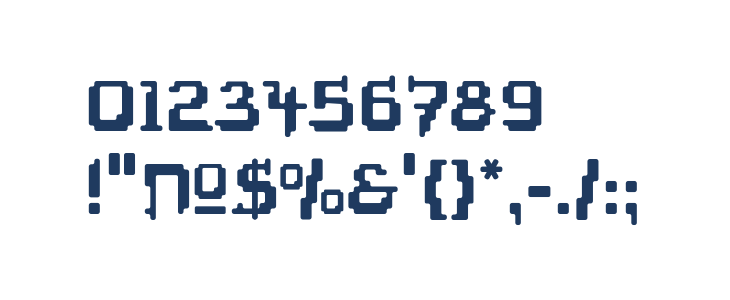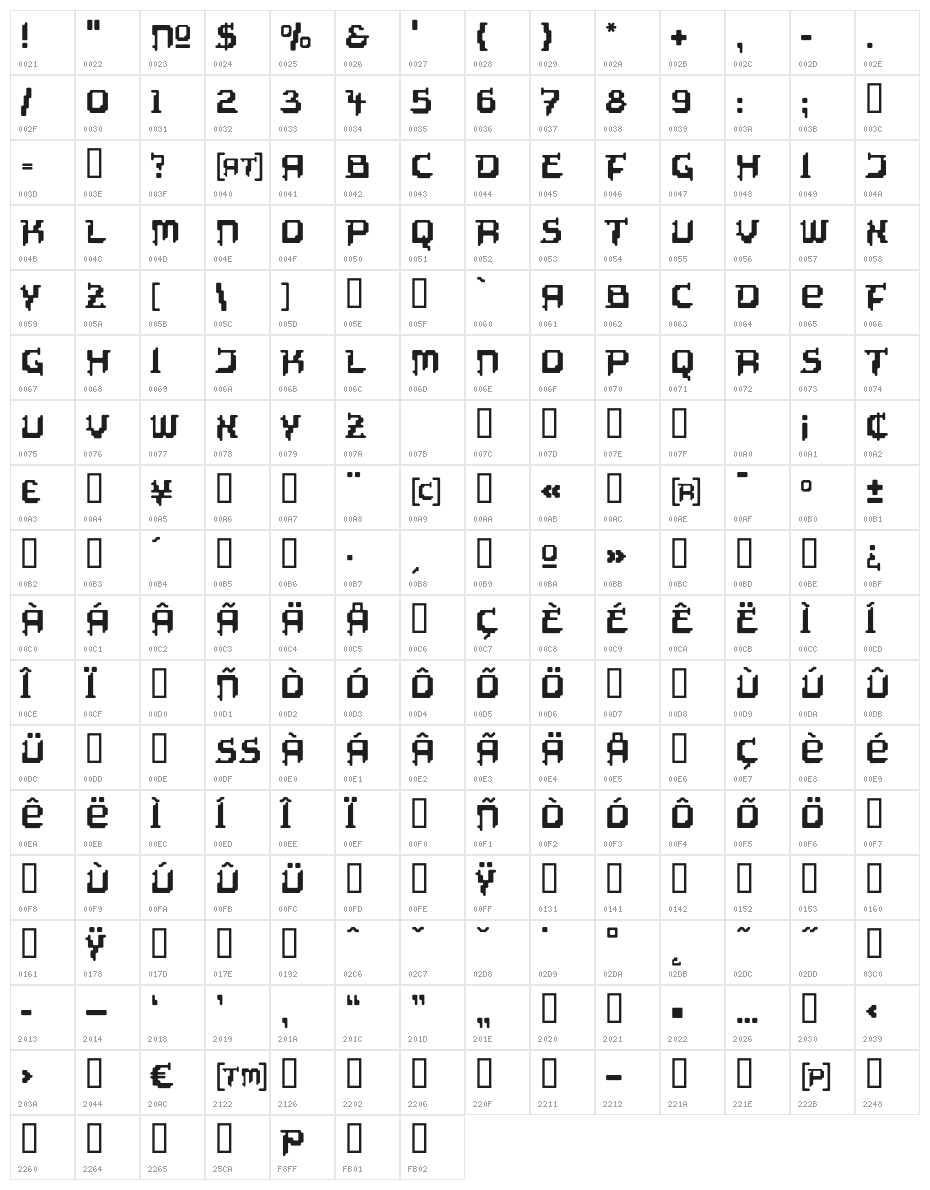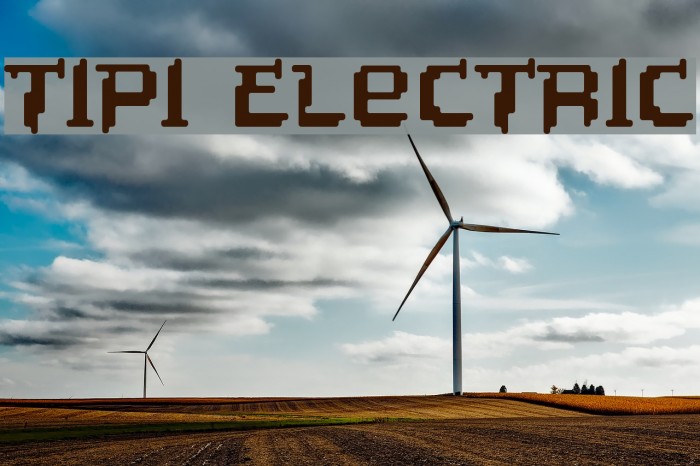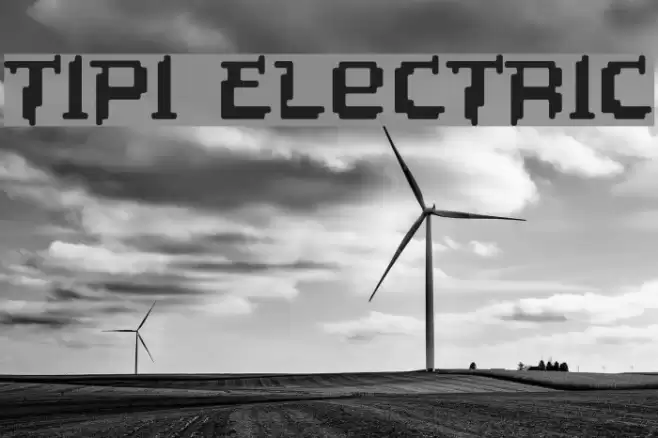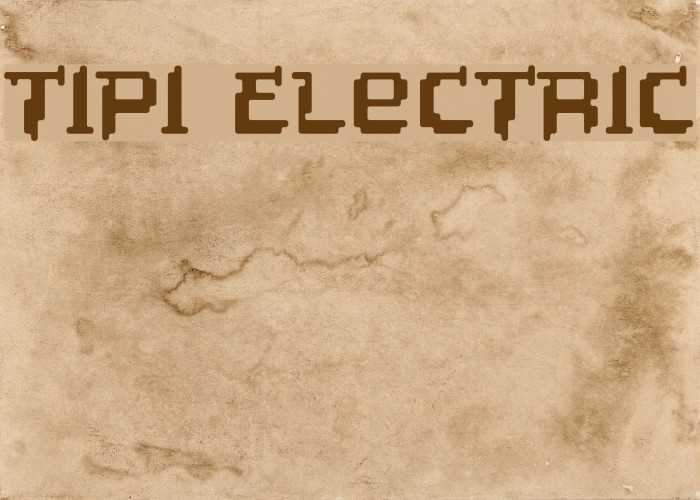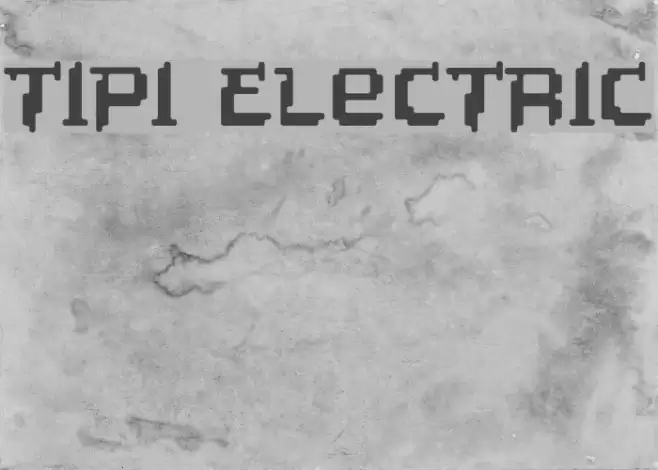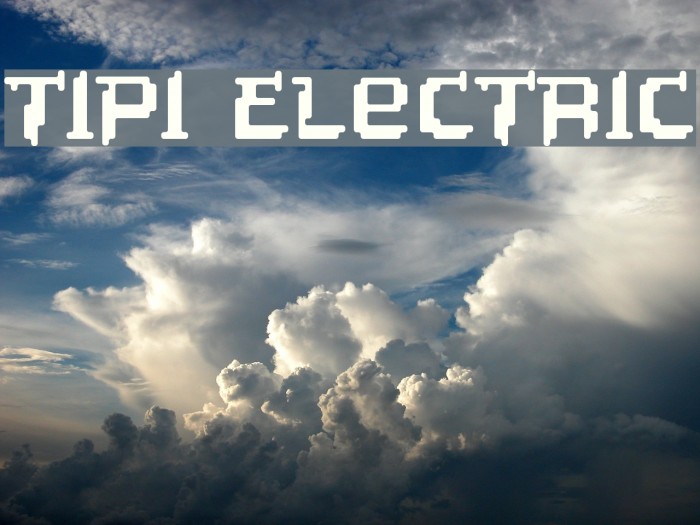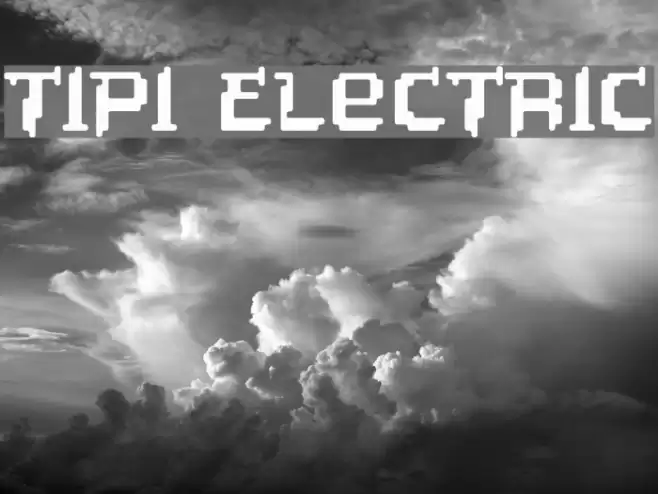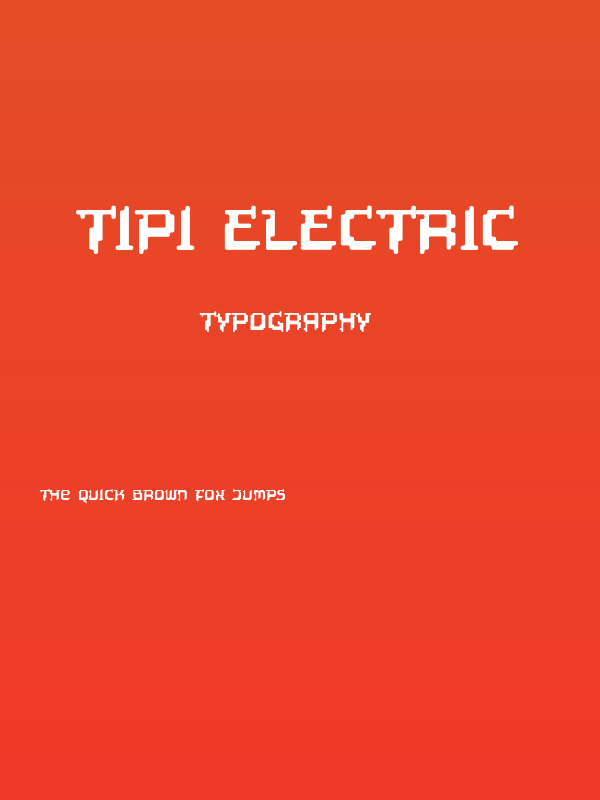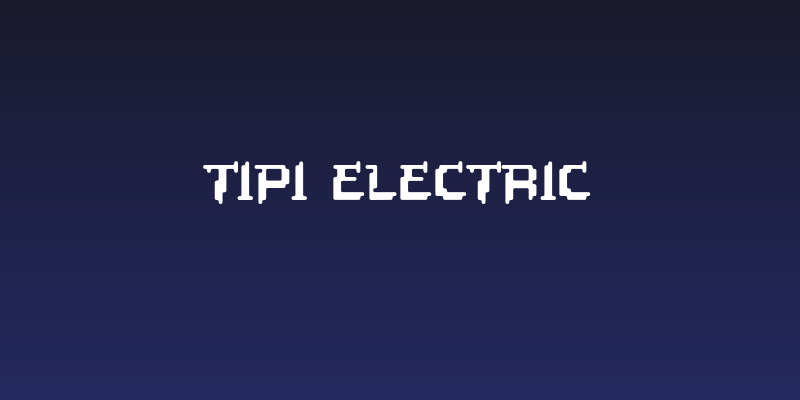
Tipi Electric Font
Tipi Electric Description
This font features a bold, pixelated style reminiscent of early digital and arcade aesthetics. The characters are blocky with sharp edges, giving it a distinctly retro and mechanical feel. The uppercase and lowercase letters maintain a consistent height, contributing to a uniform appearance. Numbers and special characters follow the same design principles, ensuring a cohesive look across all glyphs. The font's unique style makes it stand out, ideal for projects that aim to capture a vintage digital or tech-inspired theme.
| Proposed Projects | Ideal for video game design, tech-themed posters, retro digital art, and branding for technology companies. |